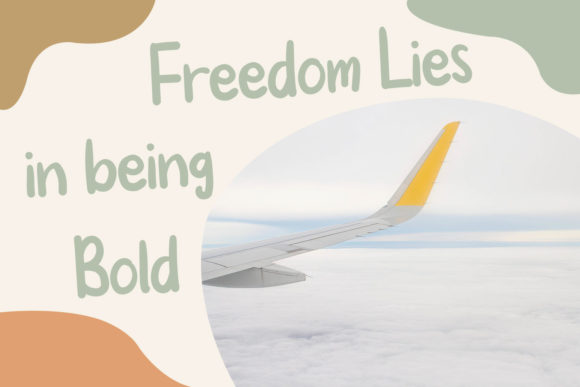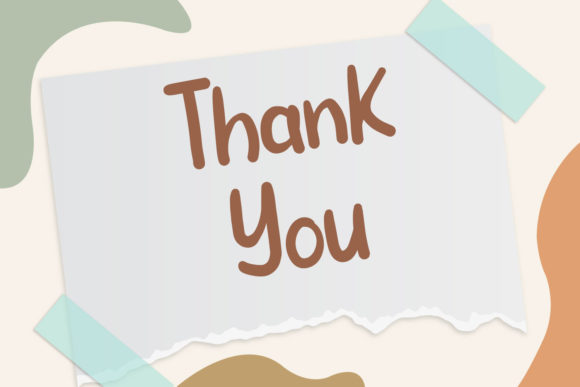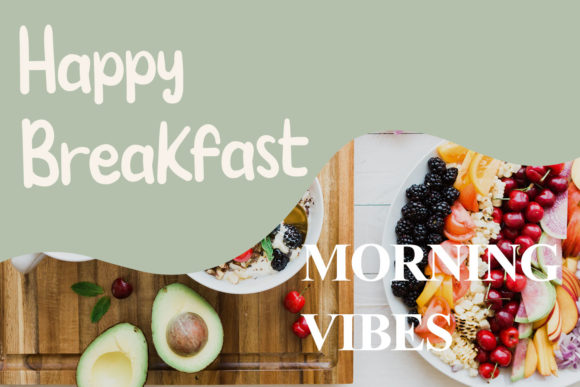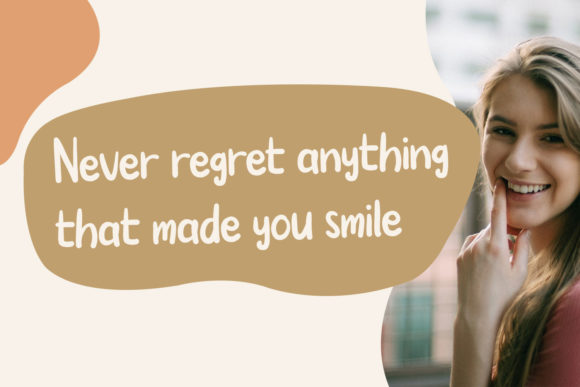
About Bayonette Font
Bayonette is a simple and flowing handwritten font. This adaptable font will look great on a variety of design ideas. It will add a fun and friendly touch to each of your projects!